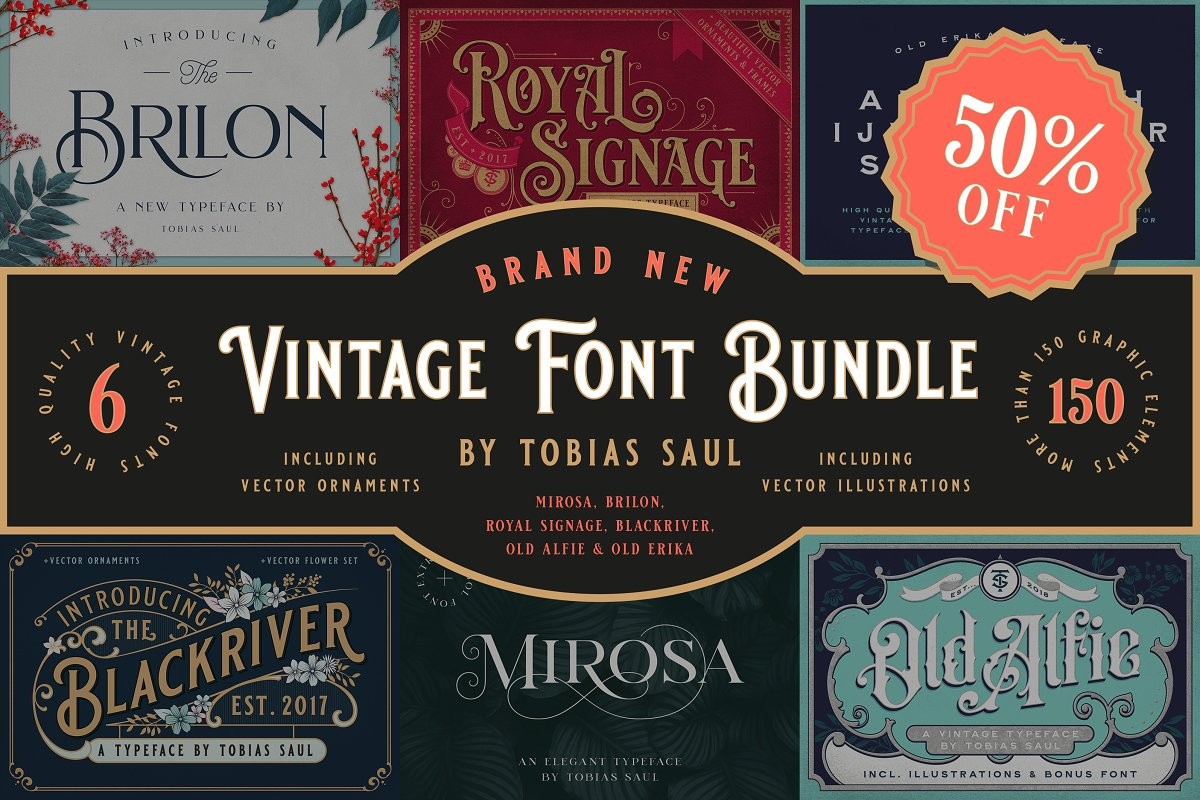
Hey guys! I want to introduce my first vintage font bundle, including my latest 6 fonts and all graphic elements for just 50% of the original value!!!
The font styles reach from clean to very ornate, which gives you endless design possibilities. All fonts work perfect for headlines, logos or packaging design.